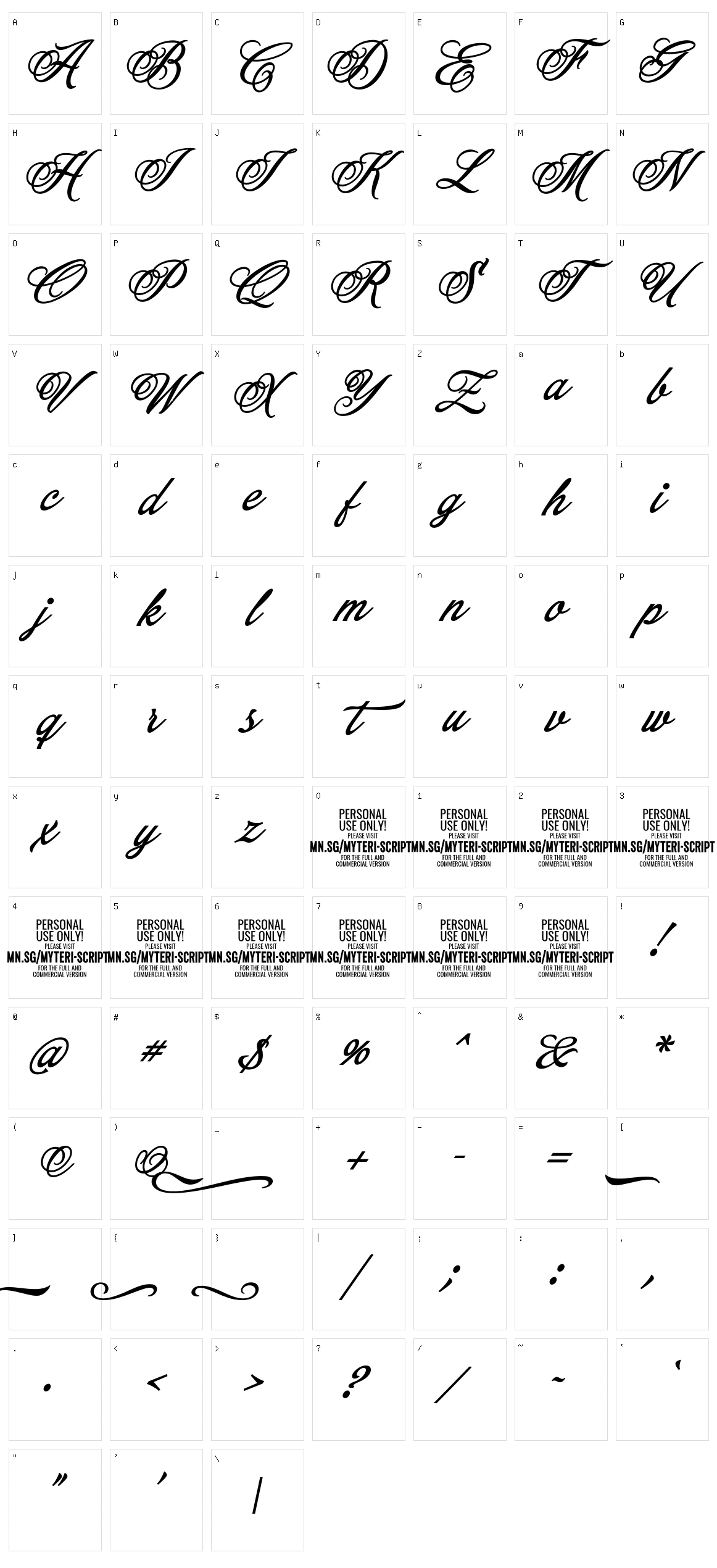
Myteri Script is an expressive calligraphy font.
Drawn and created by Mans Greback, this handwritten lettering has a wild personality and tough appearance, with tattoo-inspired shapes and vivid movements.
To make swashes, use [ ] { } _ anywhere in a word.
Example: Tatt_oos
It is provided in four slant and weight styles to further extend the possibilities of use.
The font is built with advanced OpenType functionality and has a guaranteed top-notch quality, containing stylistic and contextual alternates, ligatures and more features; all to give you full control and customizability.
It has extensive lingual support, covering all European Latin-based languages.
It contains all characters and symbols you'll ever need, including all punctuation and numbers.